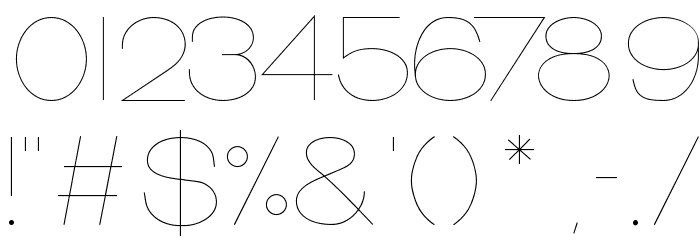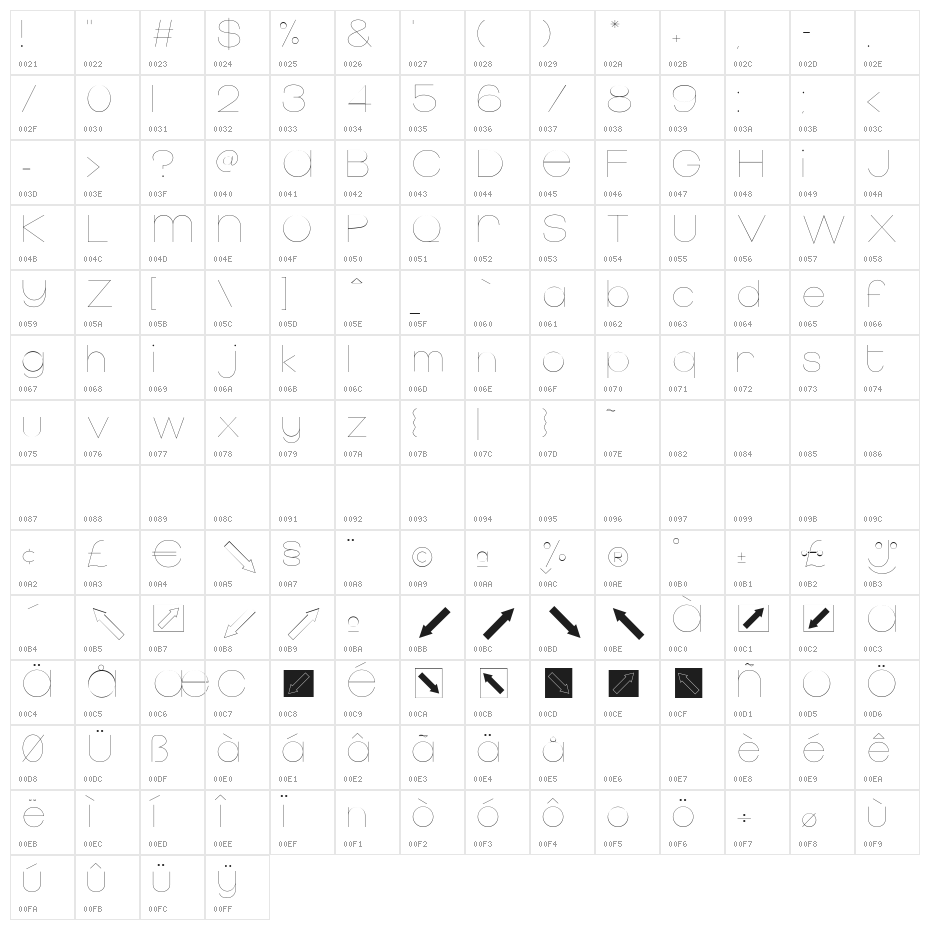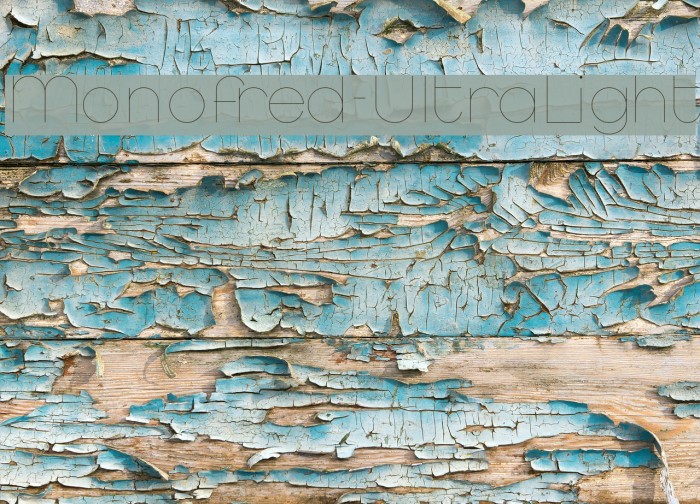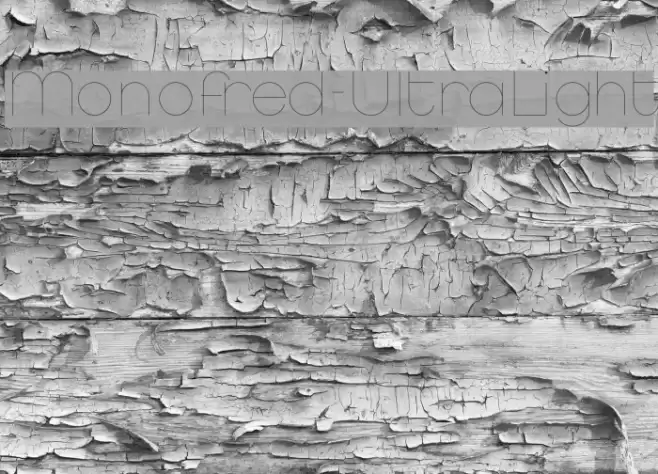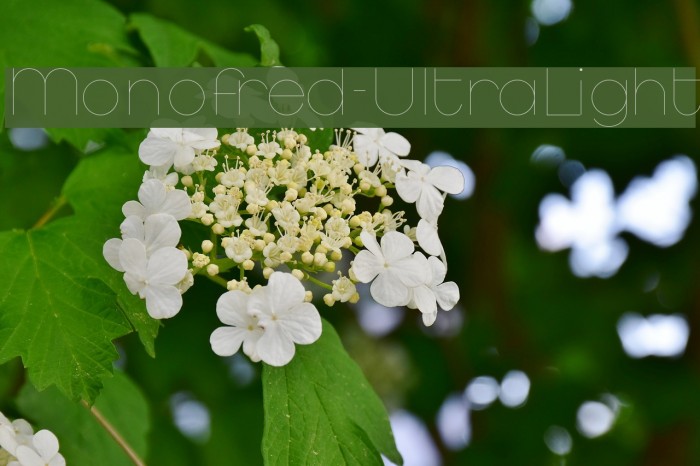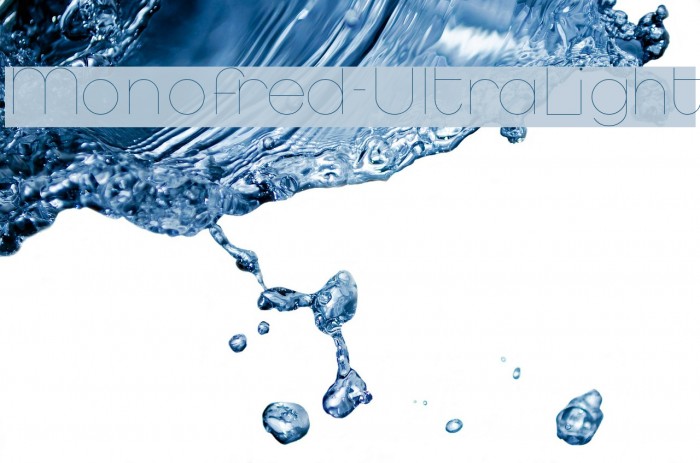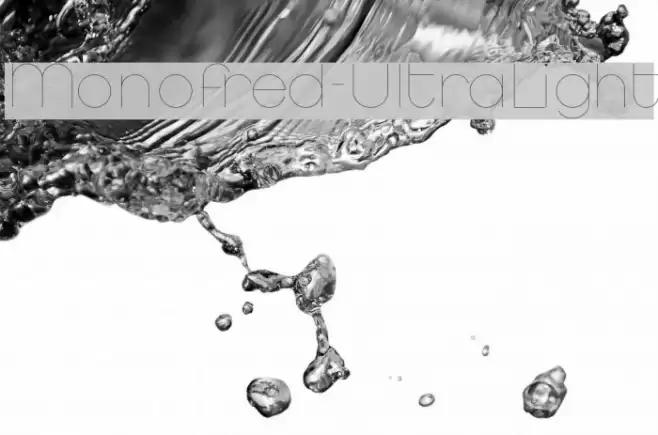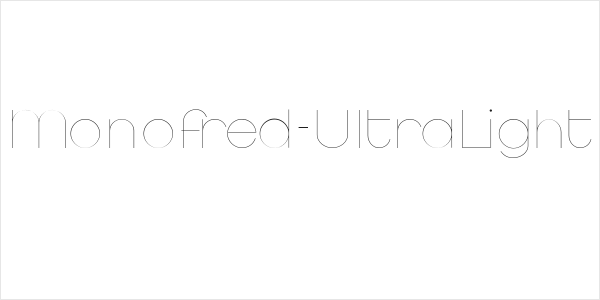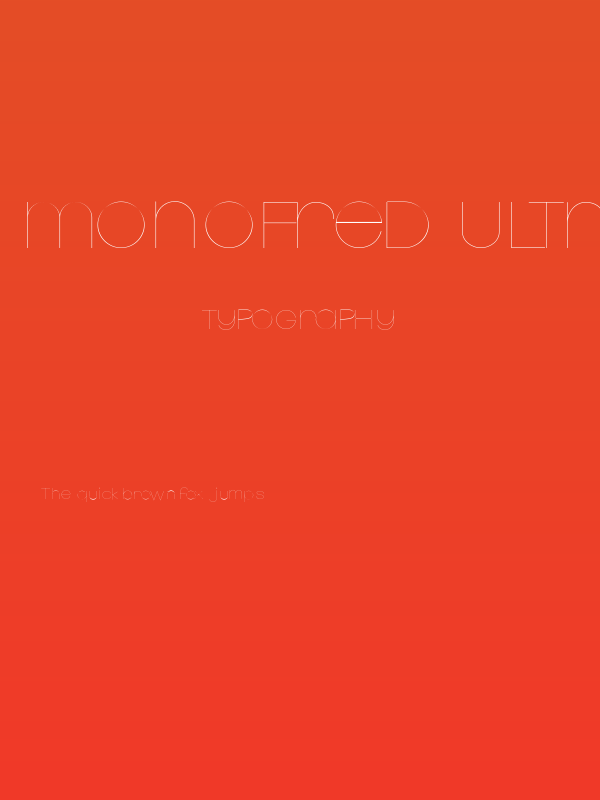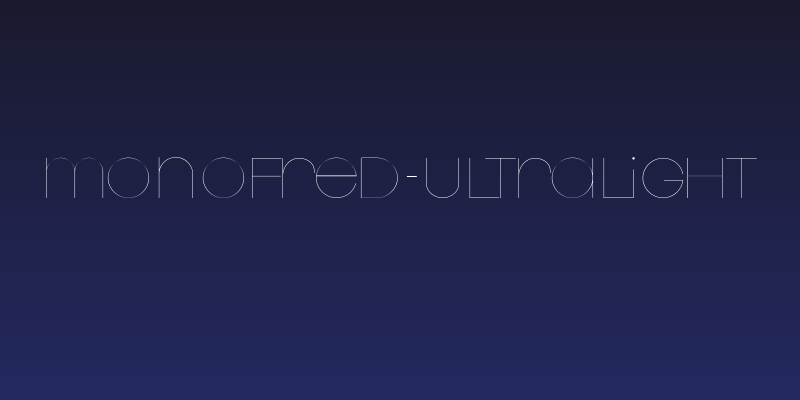
Monofred-UltraLight Font
Monofred-UltraLight Description
This font features an ultra-lightweight design with a modern and minimalist aesthetic. The characters are composed of thin, consistent lines that give it an airy and open feel. The geometric shapes and clean lines make it highly legible, even at smaller sizes. The uniformity in stroke width across all characters contributes to its sleek and contemporary appearance. This font is particularly suited for projects that require a sophisticated and understated look, such as high-end branding or editorial design. Its simplicity and elegance make it versatile for various applications.
| Proposed Projects | Ideal for luxury branding, minimalist editorial layouts, and modern web design. |